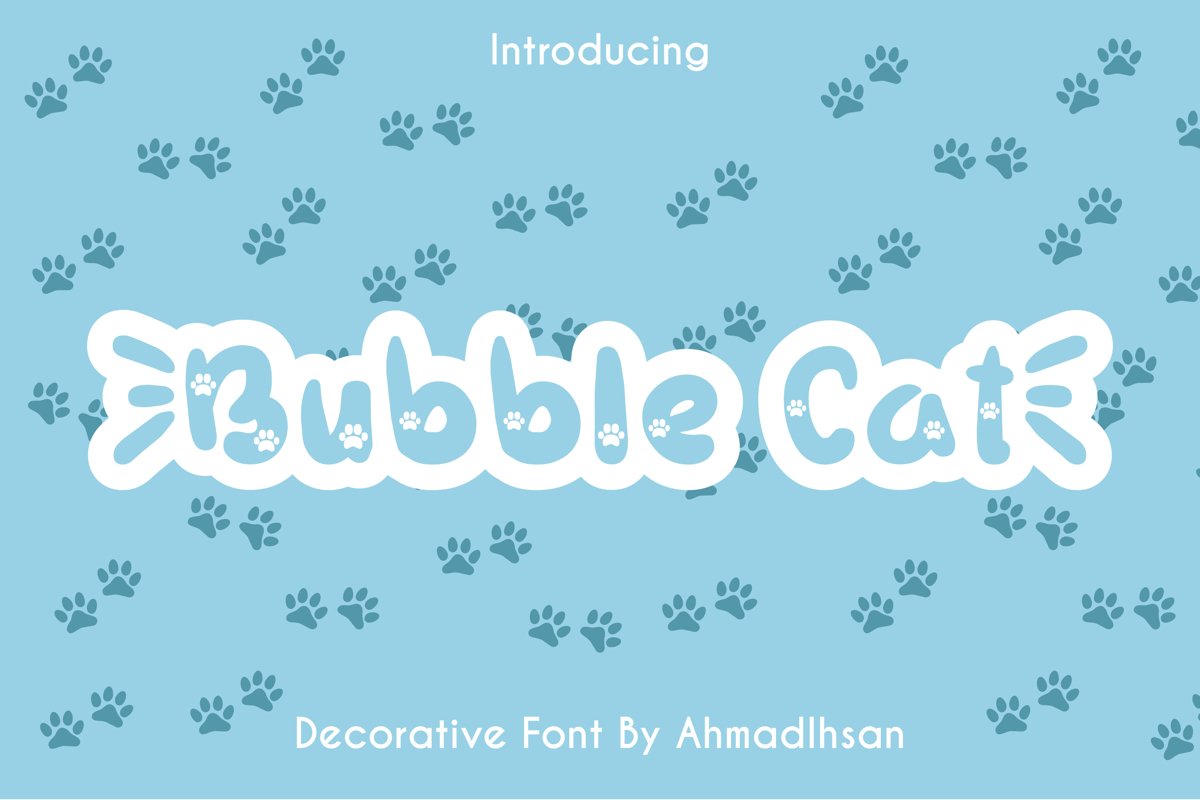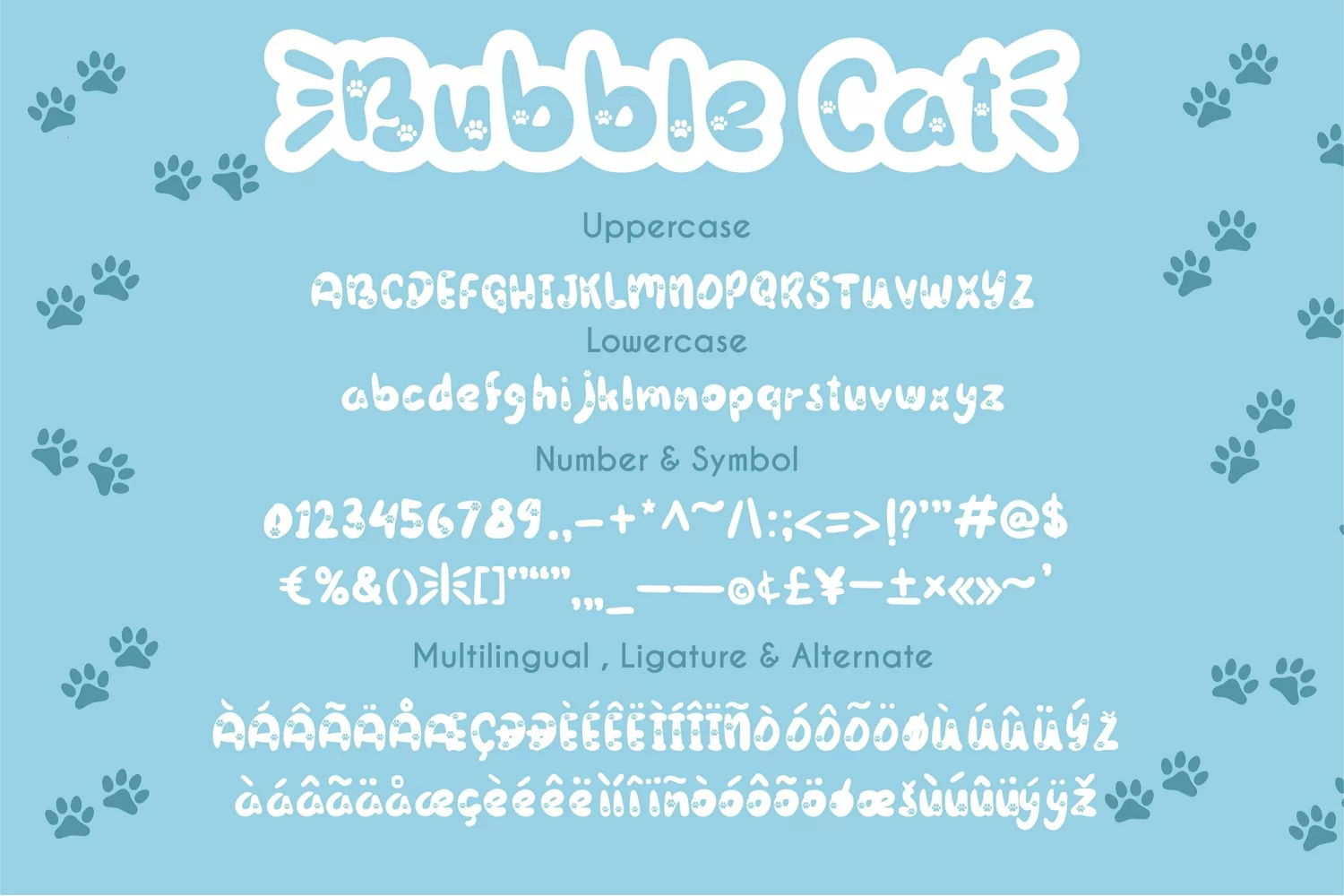
Bubble Cat
Bubble Cat a display font. This font
will looks awesome and amazing in many way to your latest project.
Bubble Cat is perfect for many different
project such as logos & branding, invitation, stationery, wedding
designs, social media posts, advertisements, product packaging, product
designs, label, photography, watermark, special events or anything.
- Character set A-Z
- Character set a-z
- Support multilanguage glyphs